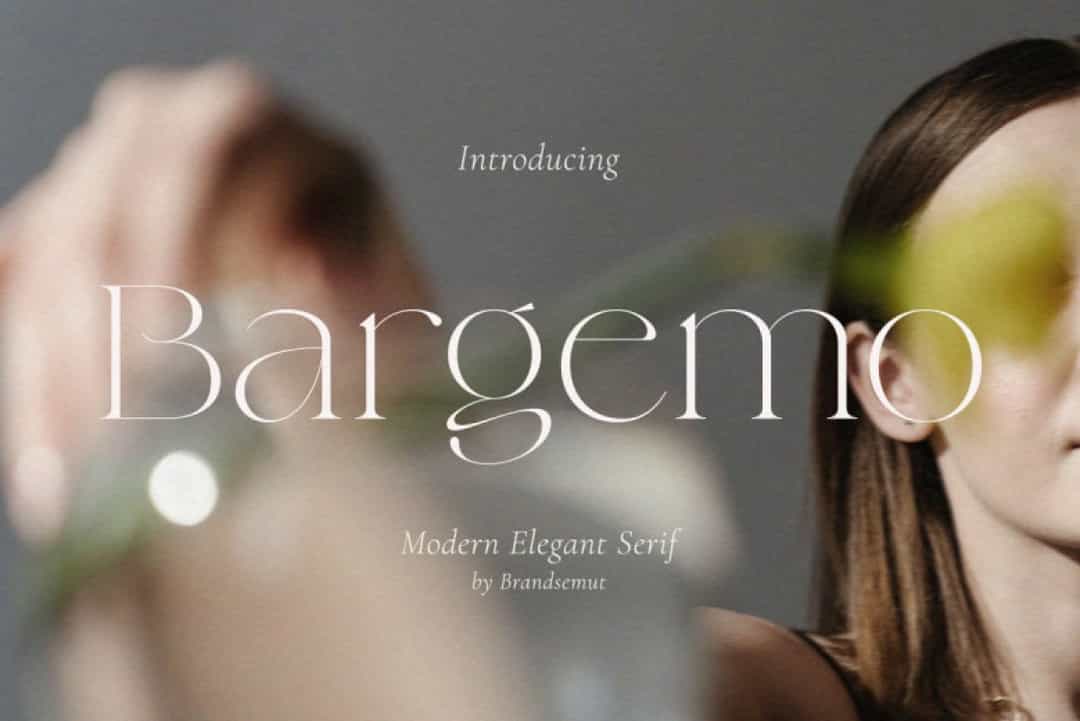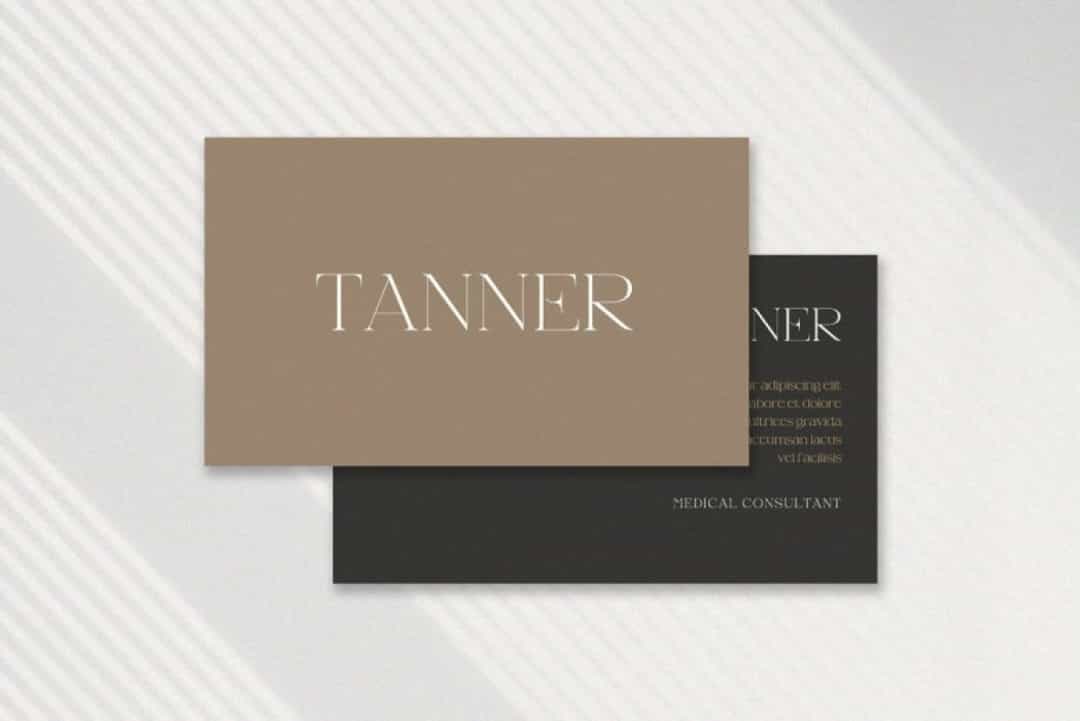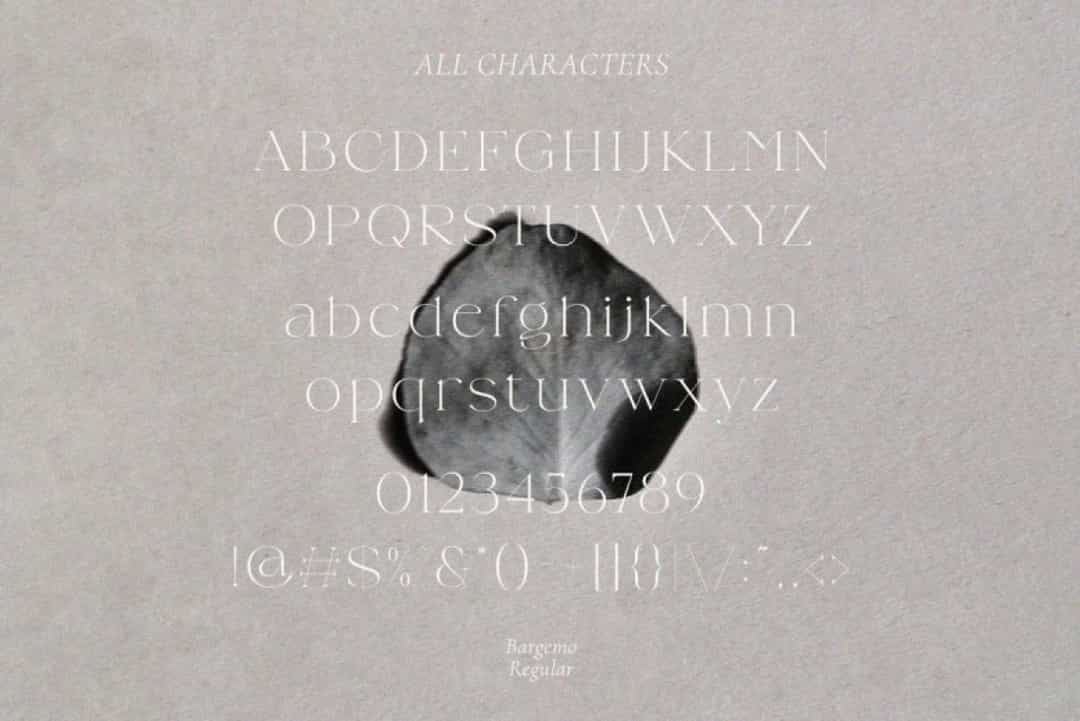
Bargemo is an elegant serif typeface ideal for headers and logos, branding magazines, product packaging and invitations. With clean lines and soft curves, this font will bring sophistication and class to any project you create with it.